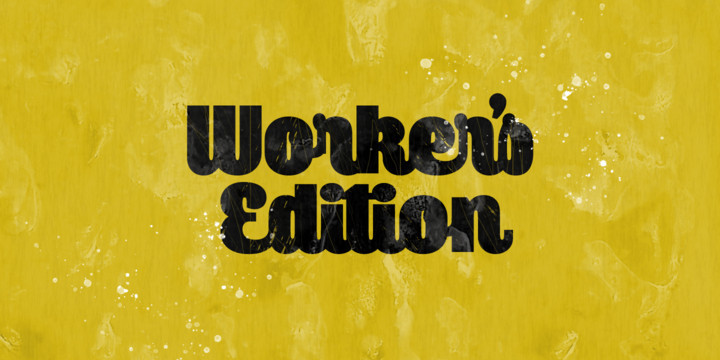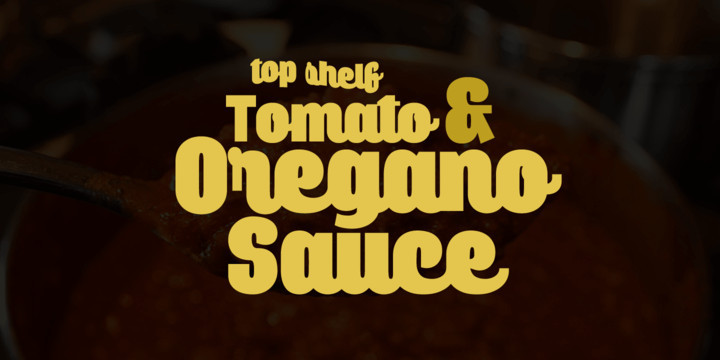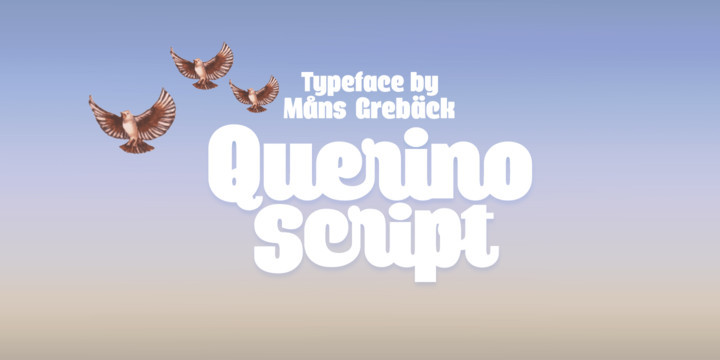
Querino Font
Querino Script is an extra-bold script font, created by Måns Grebäck during 2018 and 2019.
It comes as a regular, upright version and as italic.